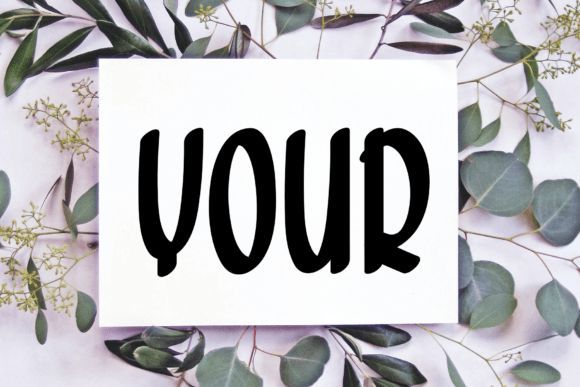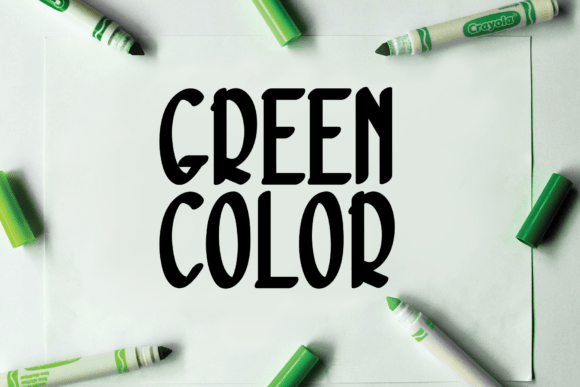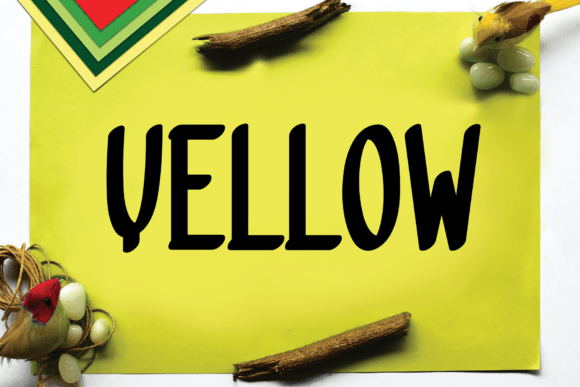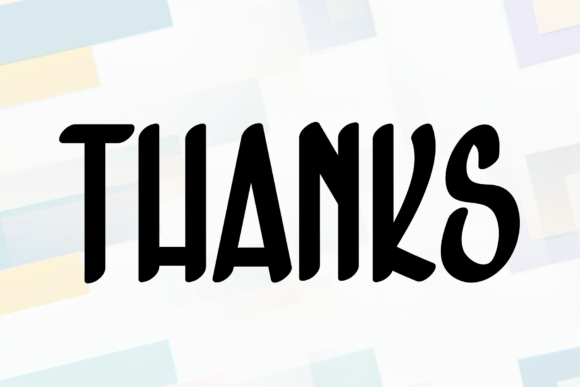
Introduction to Morning Hockey Font
Morning Hockey is a charming handwritten font filled with a sense of heartfelt perfection.
Its smooth strokes and organic lines evoke a relaxed atmosphere, making it perfect for a variety of design projects Whether used for branding, invitations or social media graphics.
Key Features of Morning Hockey Font